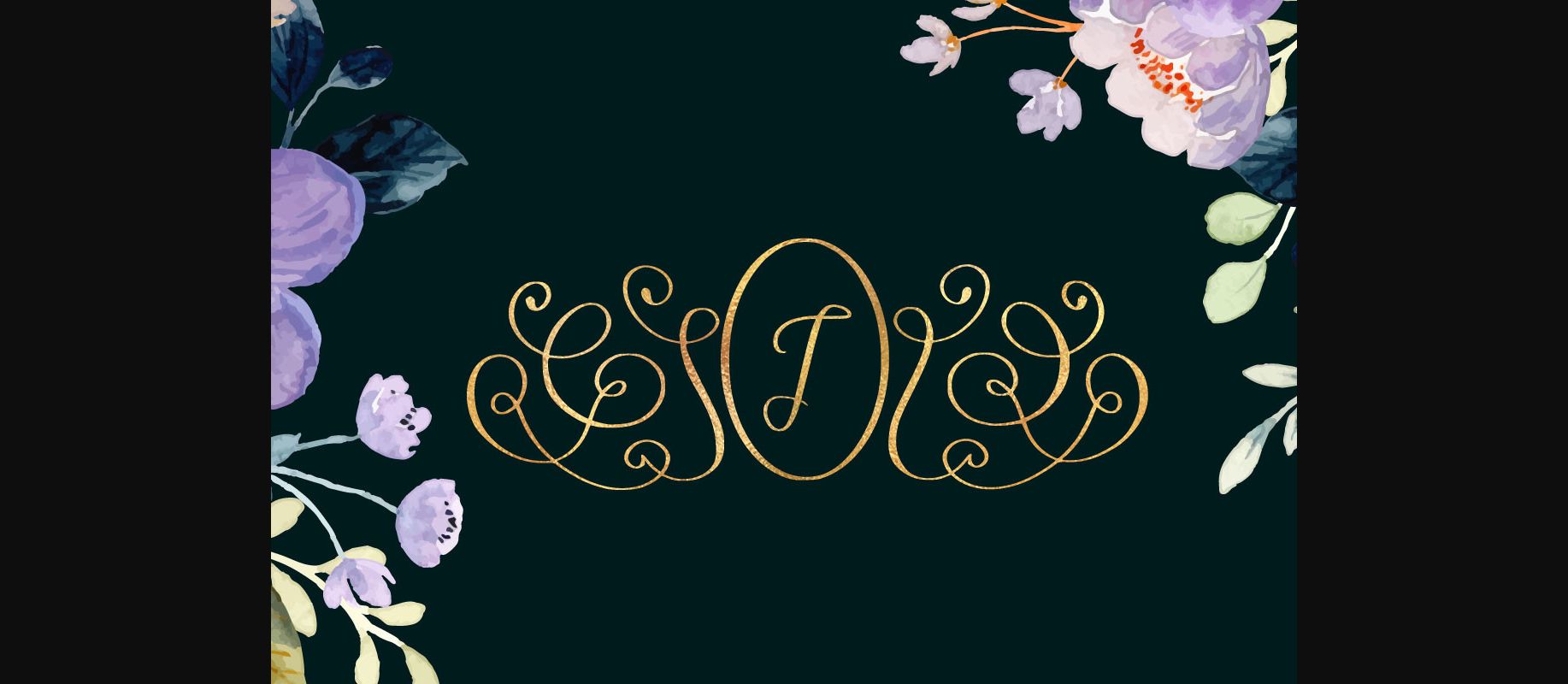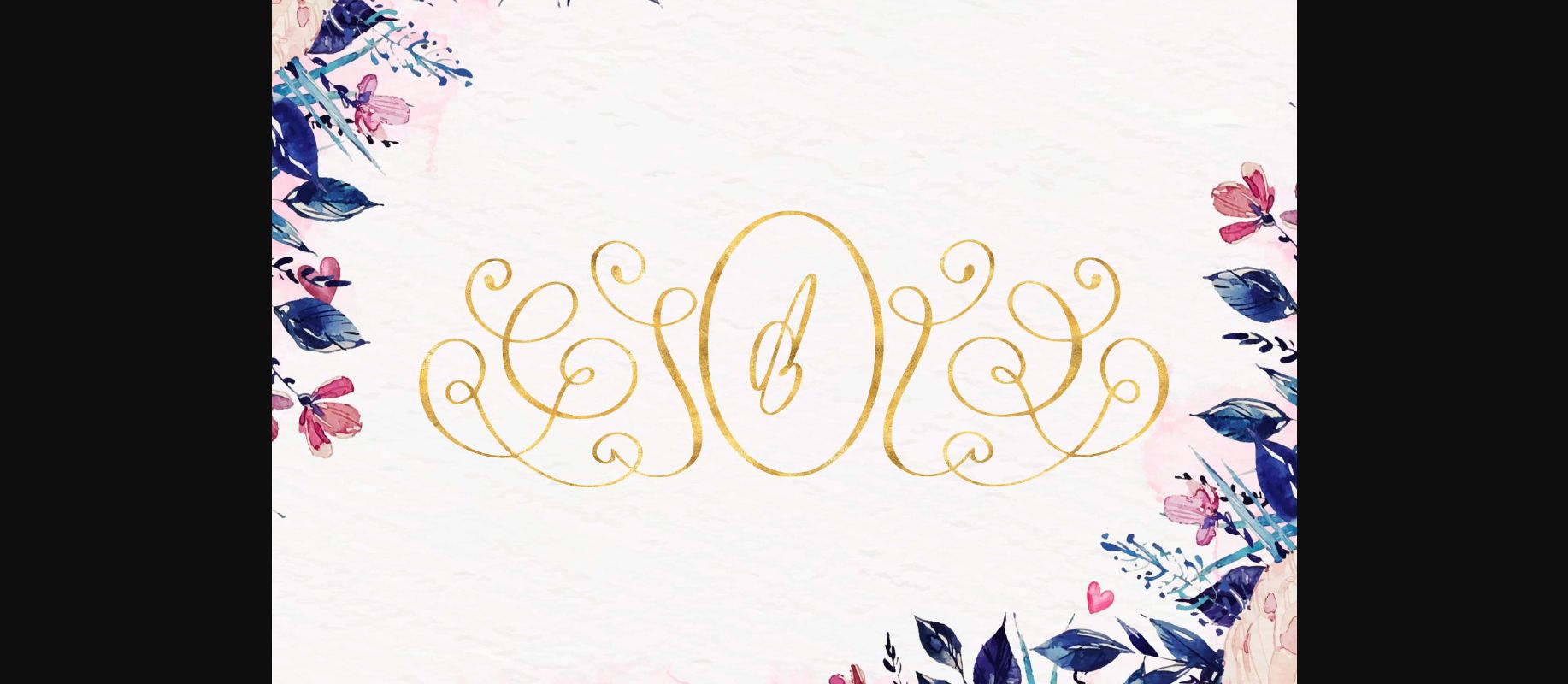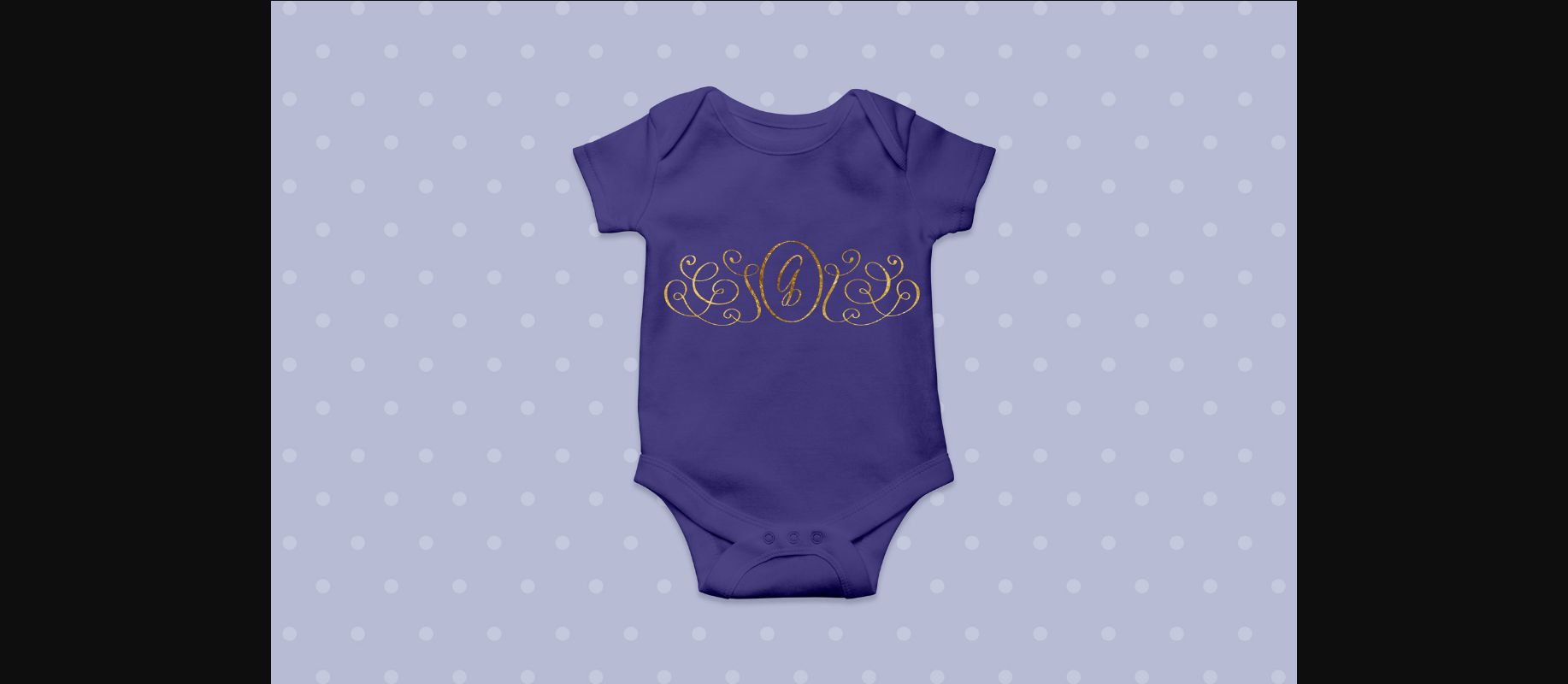
About Luxury Monogram Font
Luxury Monogram is a dainty and highly detailed decorative font. Add this romantic and lovely looking font to each of your love letters, wedding invitations or favorite design ideas, and you will be astounded by the outcome.